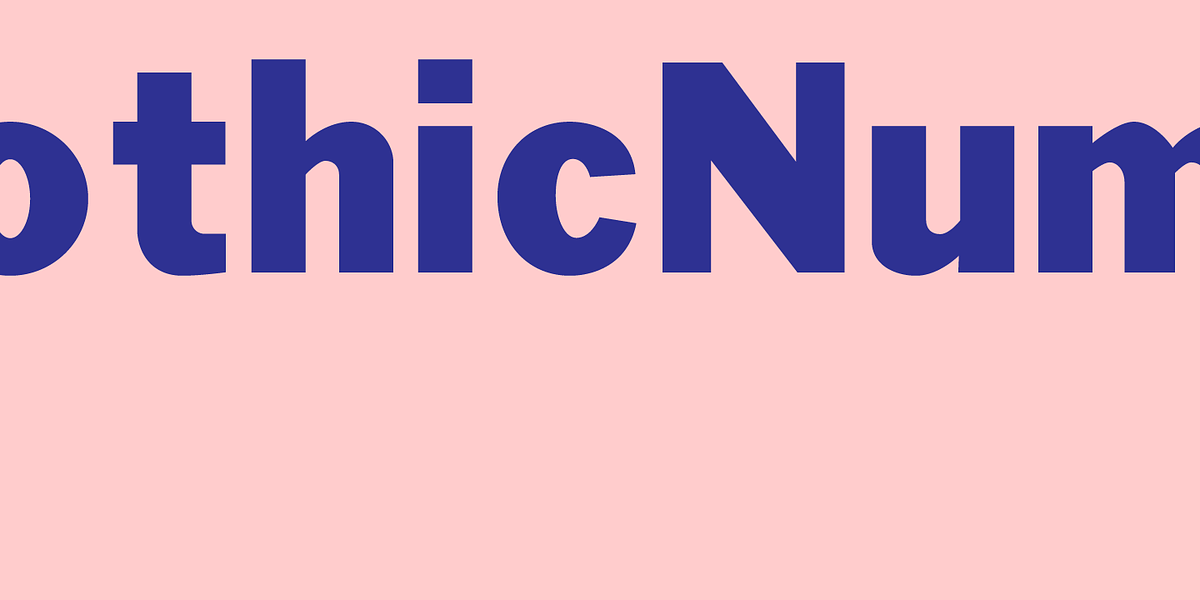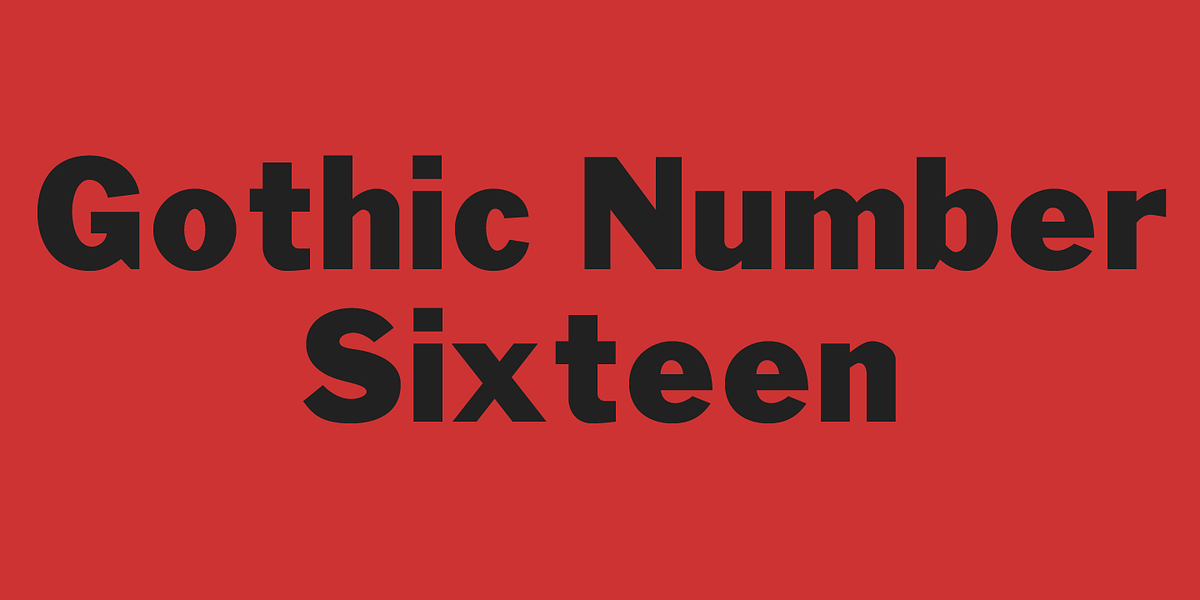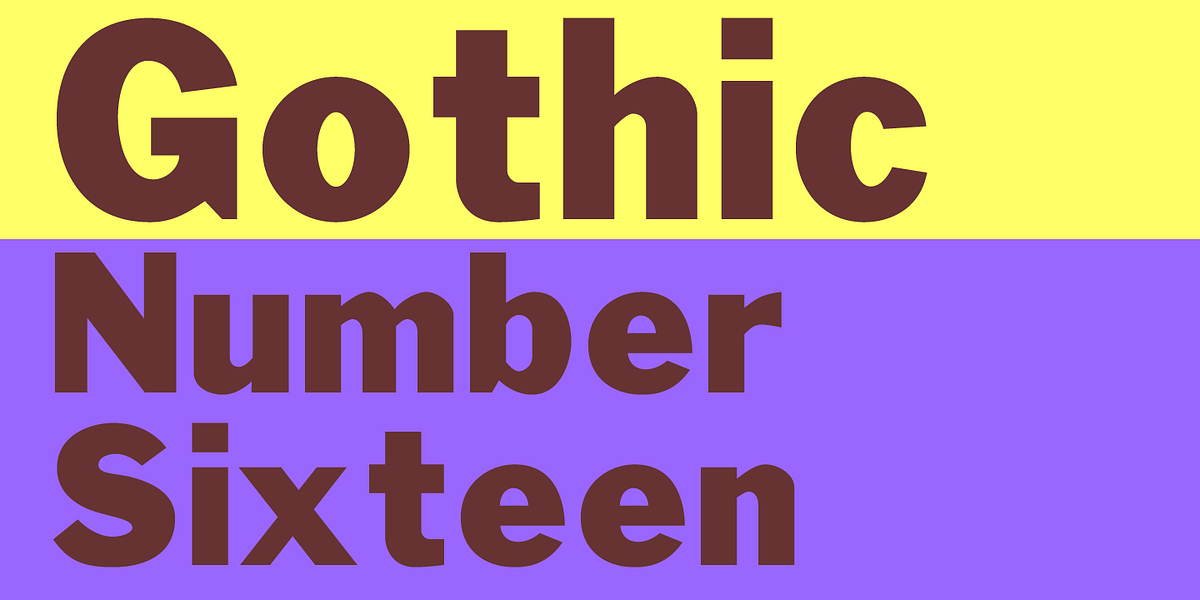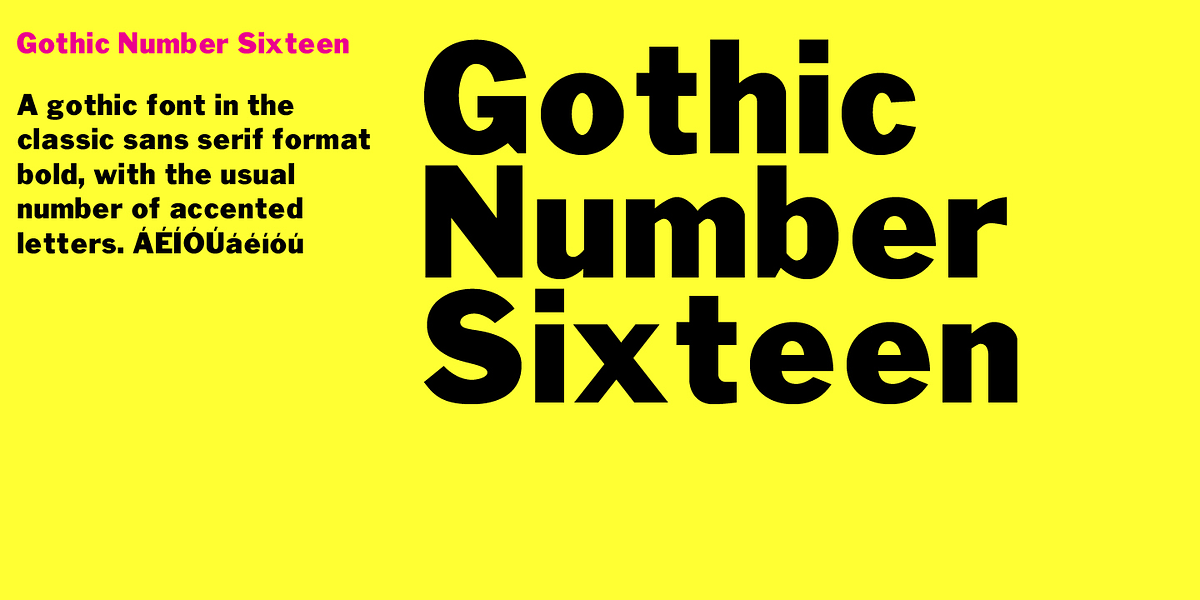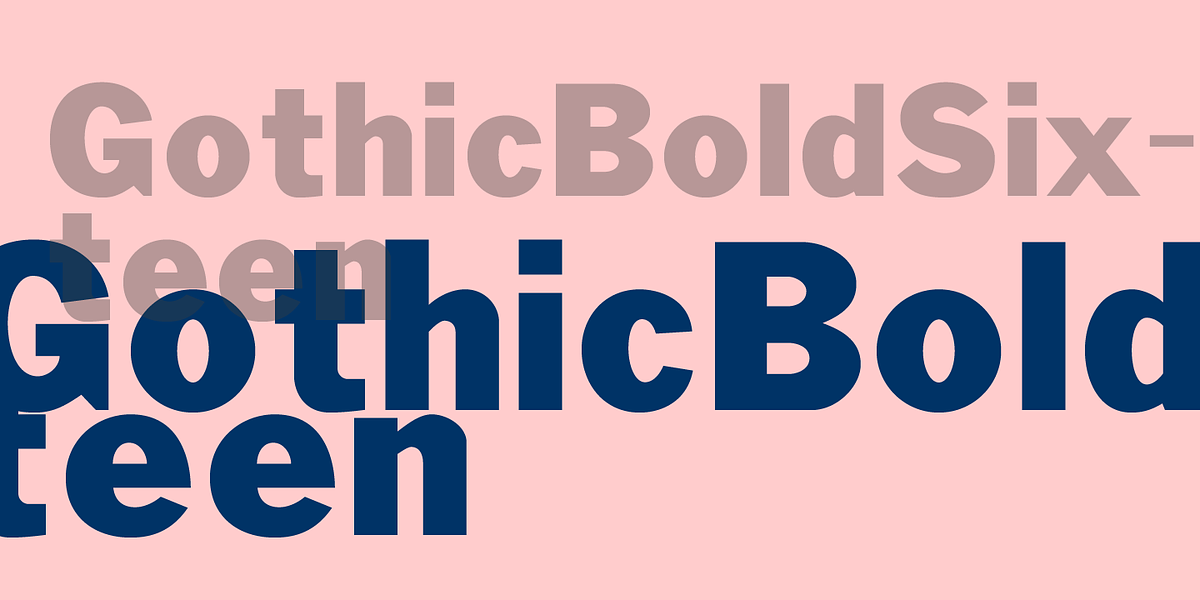
Gothic Number Sixteen
Gothic Sans Serif Bold is a powerful and impactful grotesque sans serif typeface designed for headlines and titles. Its bold weight and strong geometric shapes make it ideal for creating eye-catching designs.